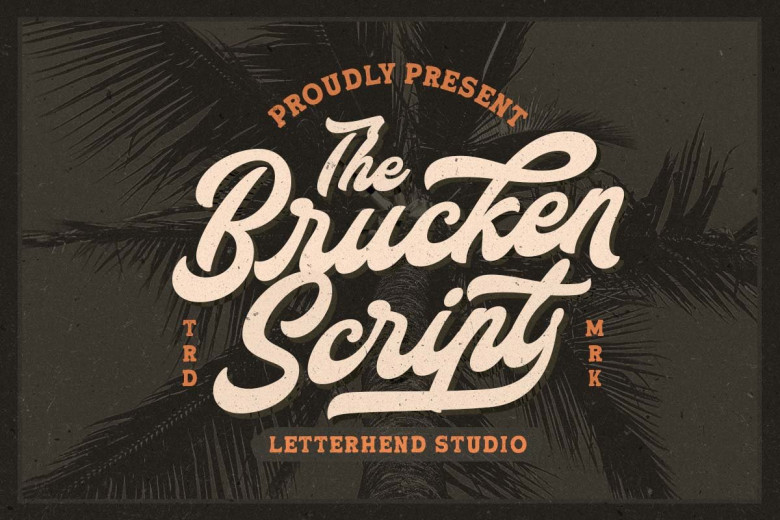
Brucken Font
The Brucken is an eye-catching retro script with an alluring swash. Perfect for retro themed projects and logo design alike. Ideal for use in logos as well as formal and informal designs like labels, invitations, books magazines and wedding, greeting cards, packaging, fashion, makeup, stationery, books, labels for any commercial use or packaging fashion makeup stationery books and labels for packaging purposes or any commercial purpose.
Brucken Bold Script Font